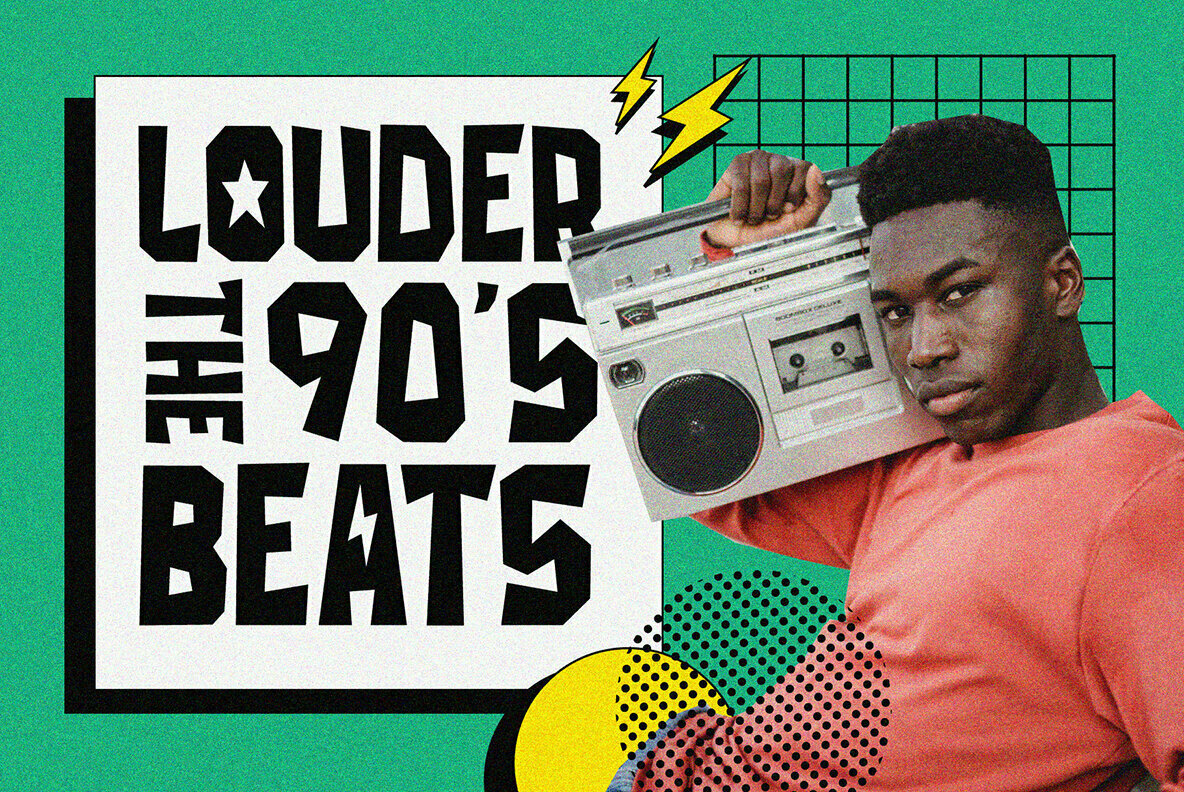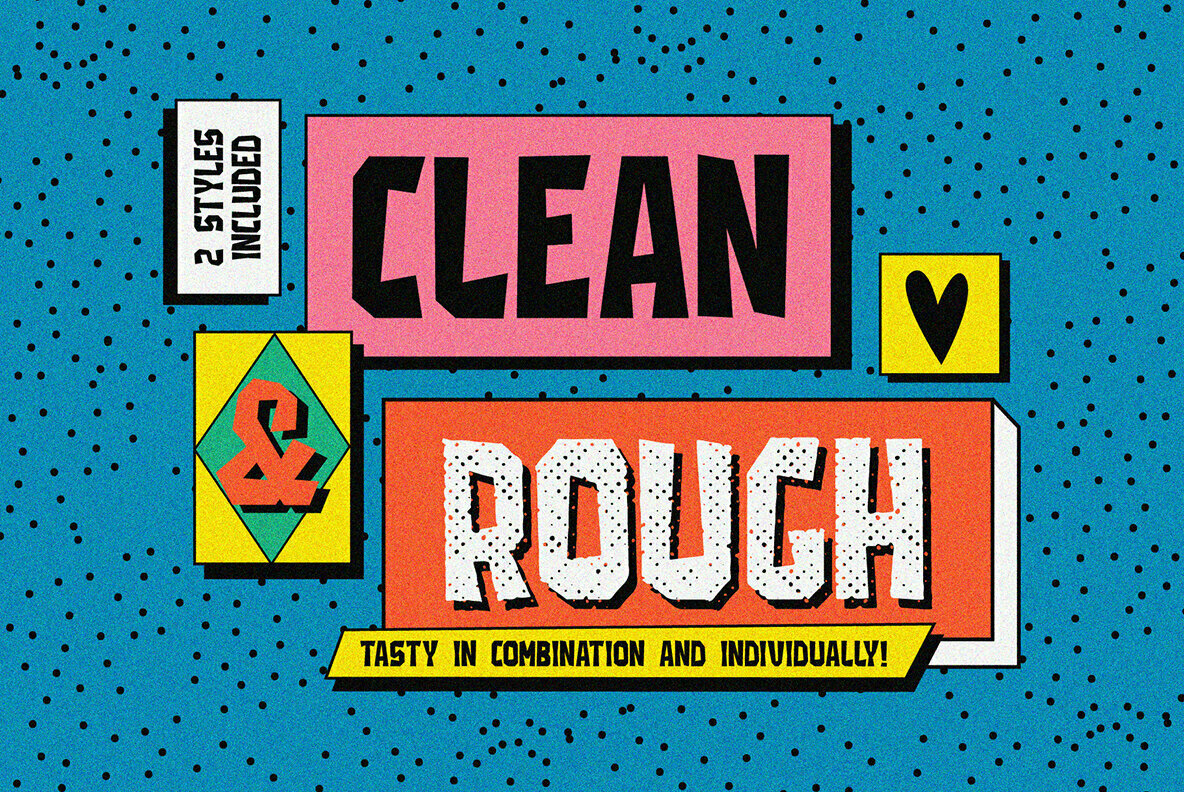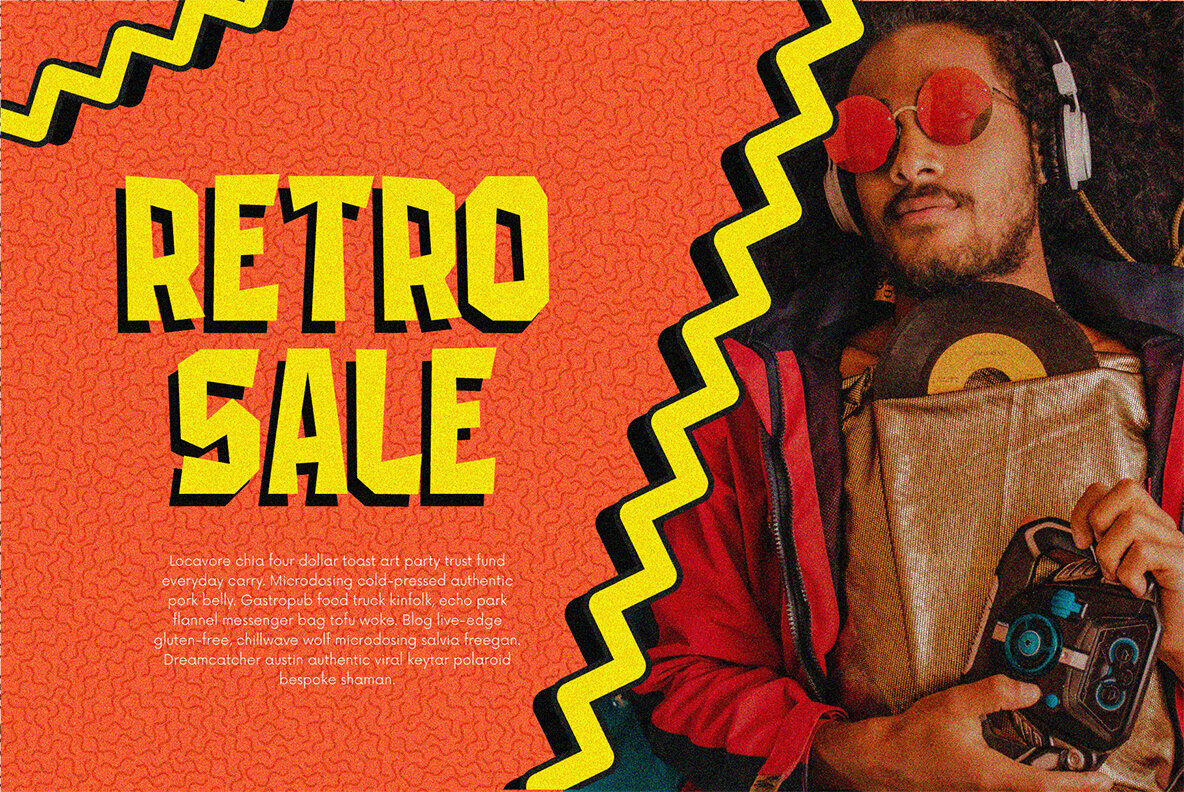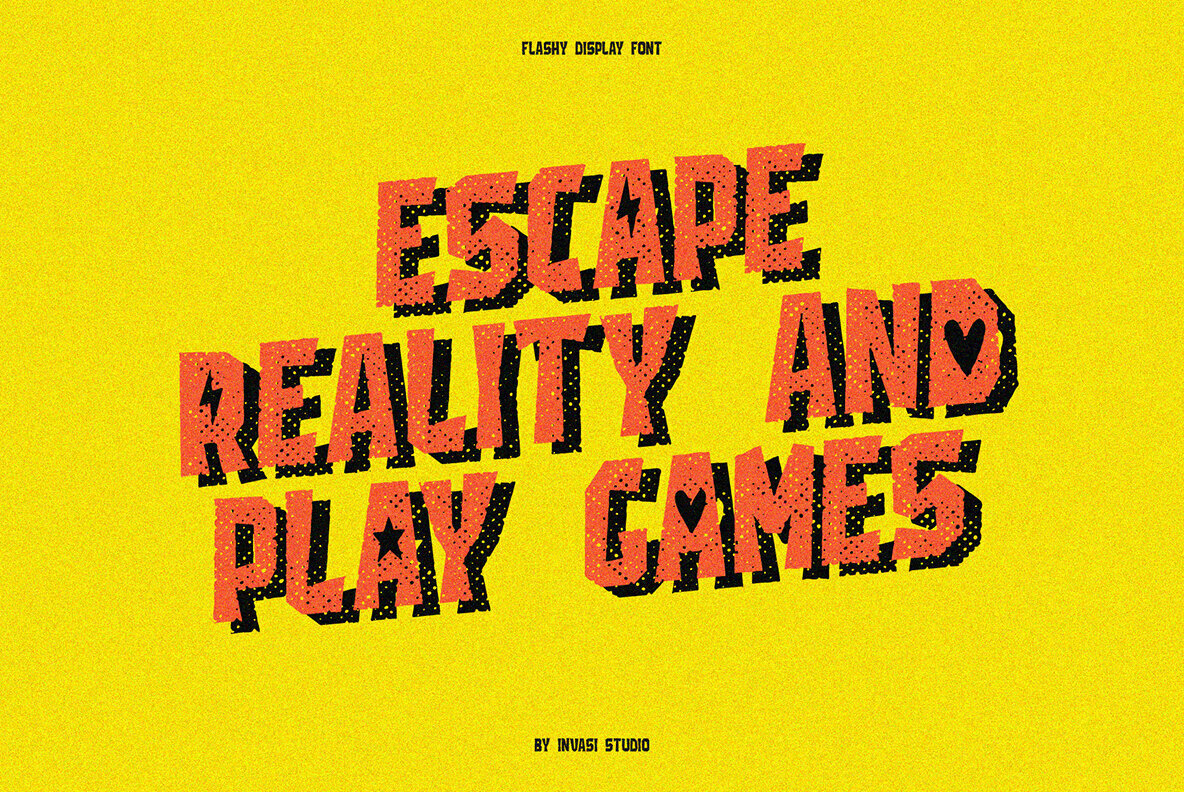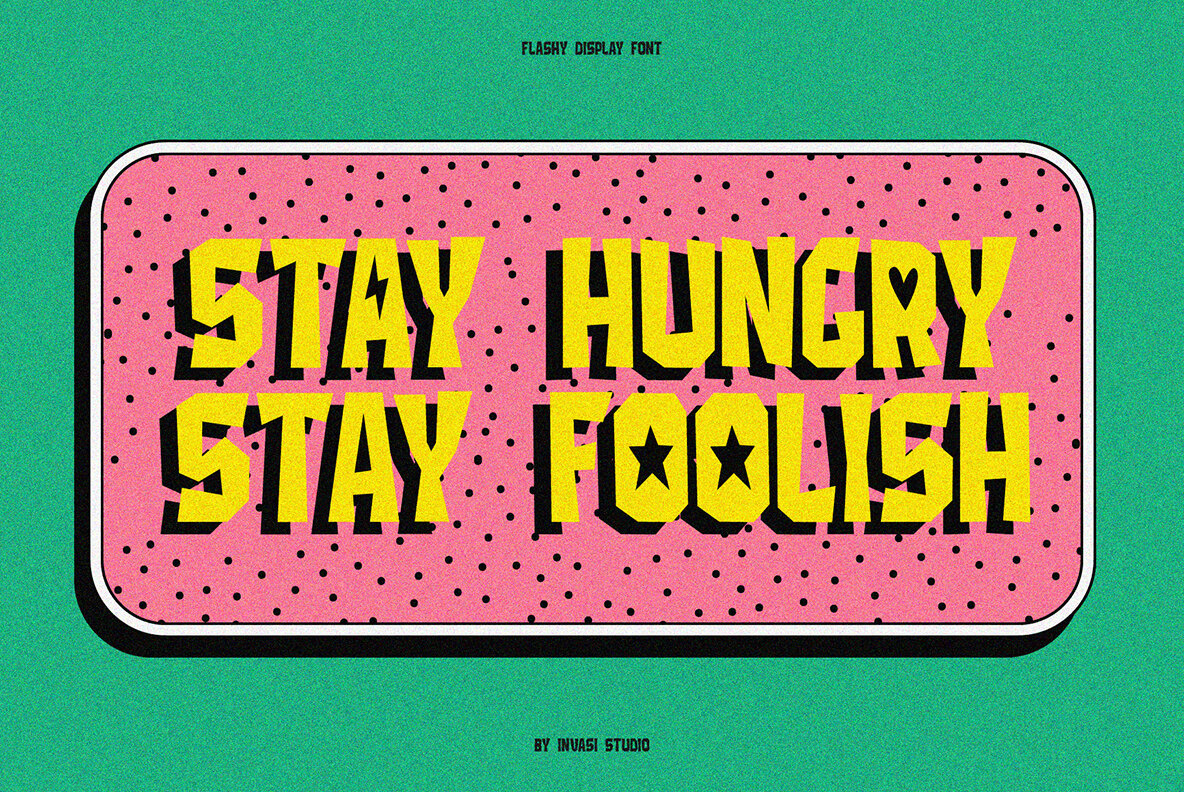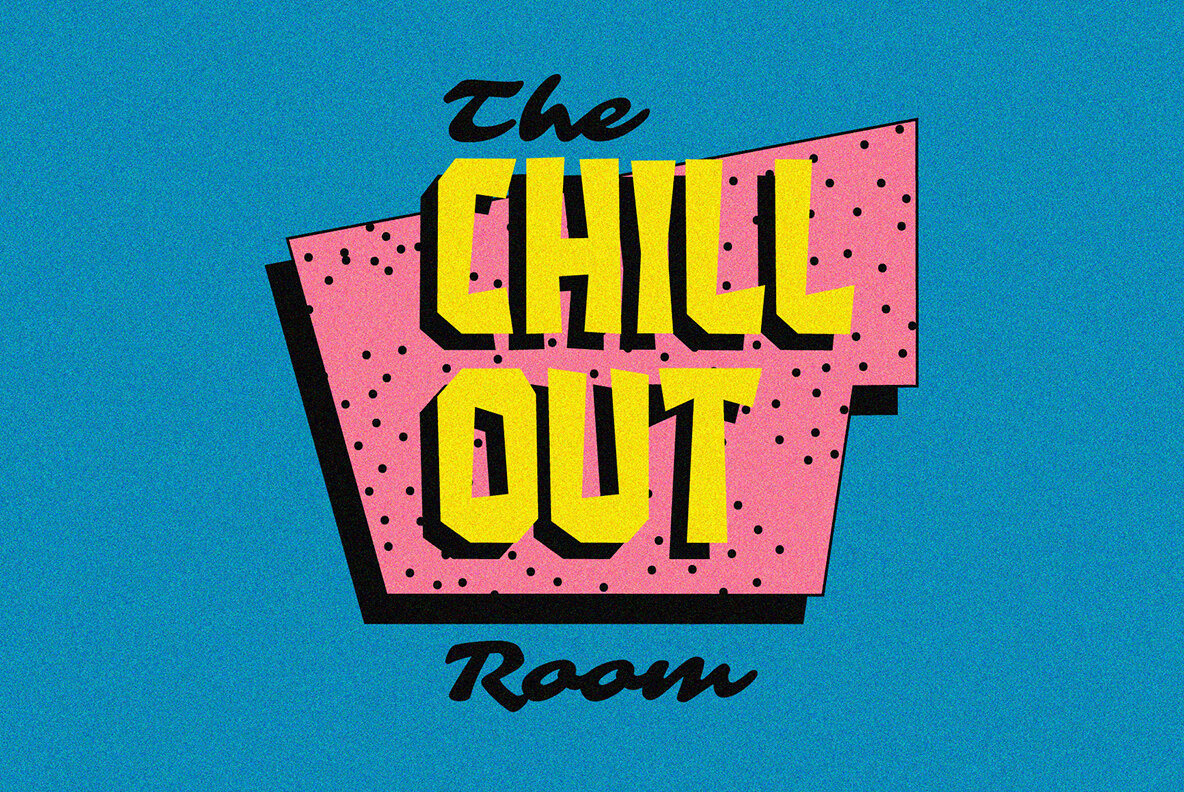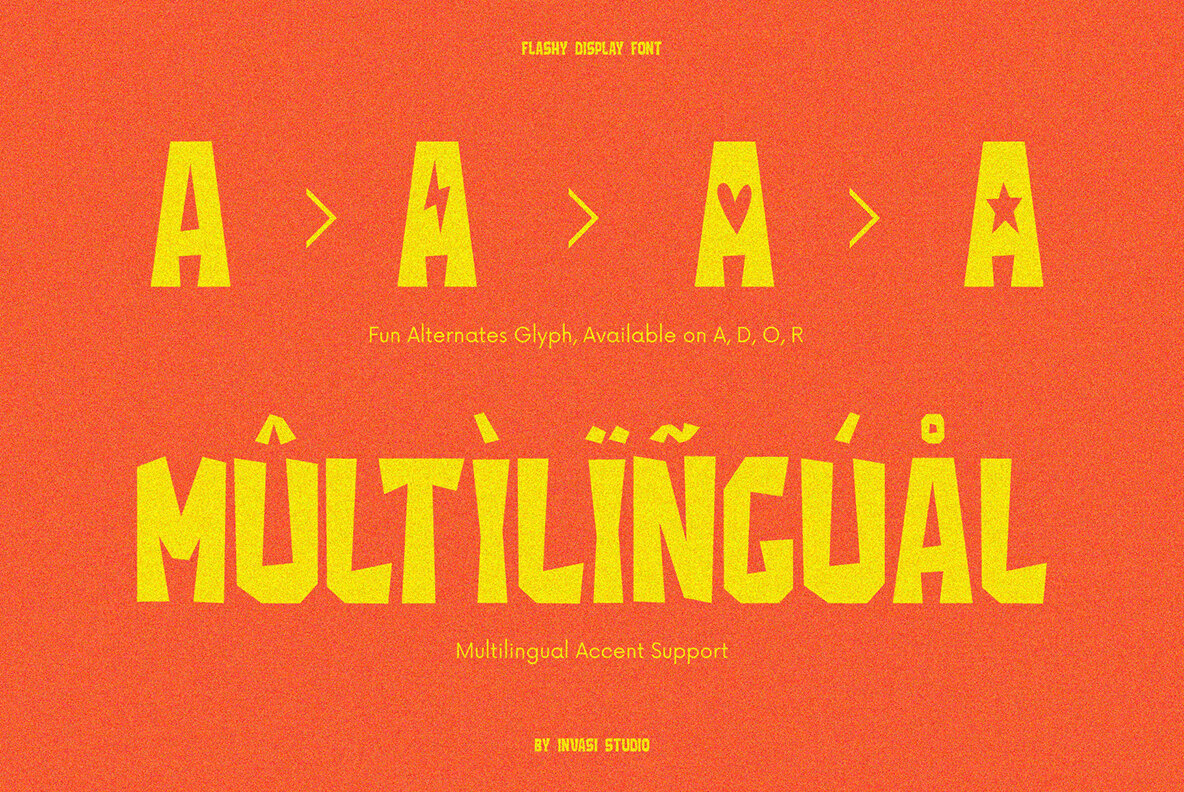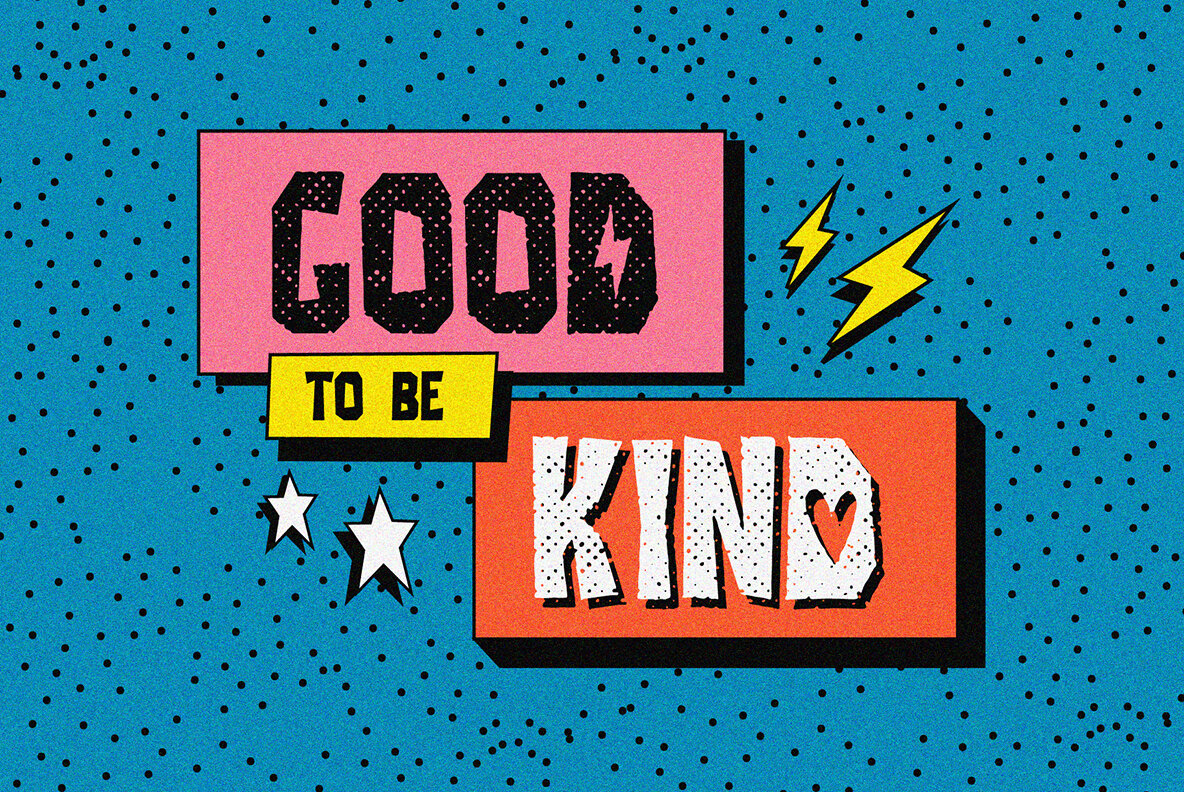
Flashy Font
Make a bold statement with Flashy, a vibrant font by Invasi Studio. Embracing a retro aesthetic, this font offers a dash of fun and a cool edge to various design projects. Its versatile alt glyph enriches your creative repertoire, ensuring your designs are memorable and distinct.Flashy: A Playful, Retro Typeface